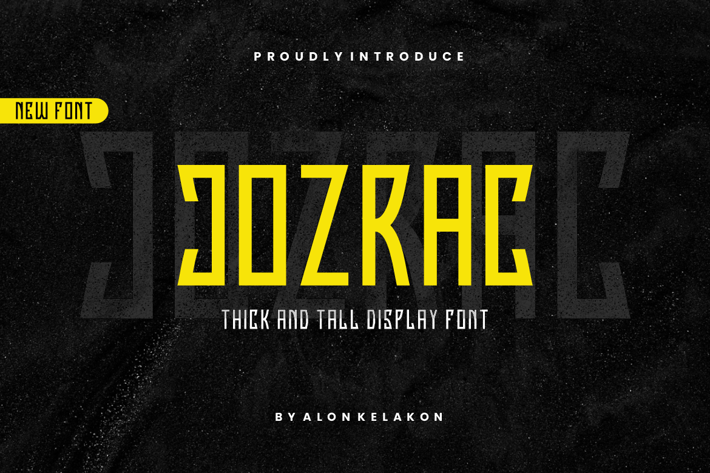
Jozrac Modern and Tall Font
Jozrac Modern and Tall Font Font is unique . Ready to use for your design like labeling, movie sceen, poster, movie title, gigs, album covers, logos, and much more.